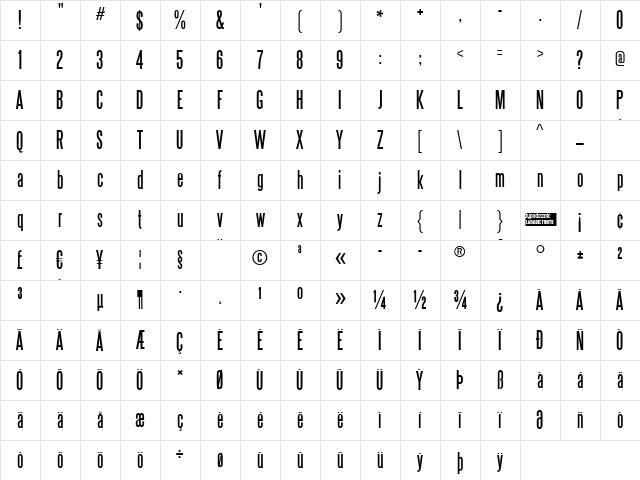
Steelfish Regular Free Font
Steelfish Regular
Design Context for Steelfish
Steelfish is a composed and adaptable typeface that performs quietly and consistently across a wide range of design contexts.
Pro Tip: Use Steelfish in both headline and body roles to test its range before committing to a single application.